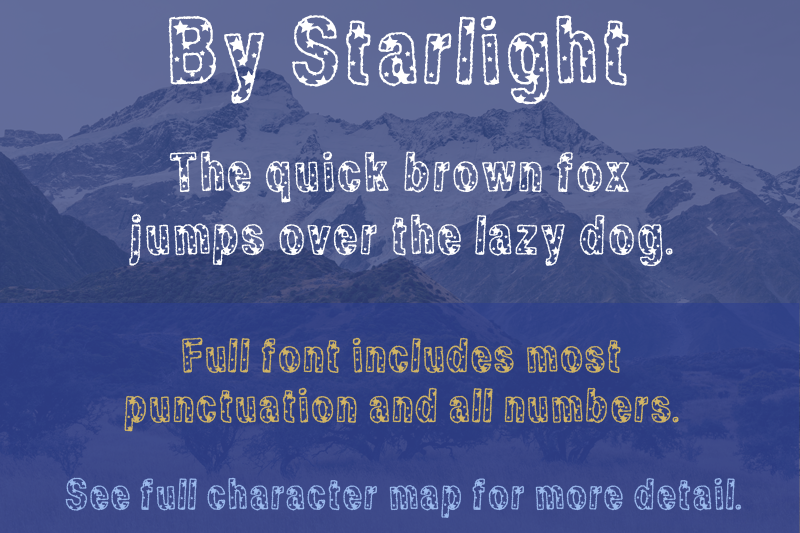
Font name: | By Starlight |
Author: | Quick Brown Fox Fonts |
Note by Quick Brown Fox Fonts | |
The By Starlight font was originally completed in December of 2000, but there were two versions prior to this one that were scrapped. This is a jumbly, lullaby font and it looks much better in larger sizes. This is a freebie. Enjoy! This is a FREE font. It contains uppercase and lowercase letters, numbers, and punctuation. You can view the full character map at QuickBrownFoxFonts.com. Whatever you use the font for, I'd love to see what you come up with! Feel free to contact me through my website and tell me about your project. |